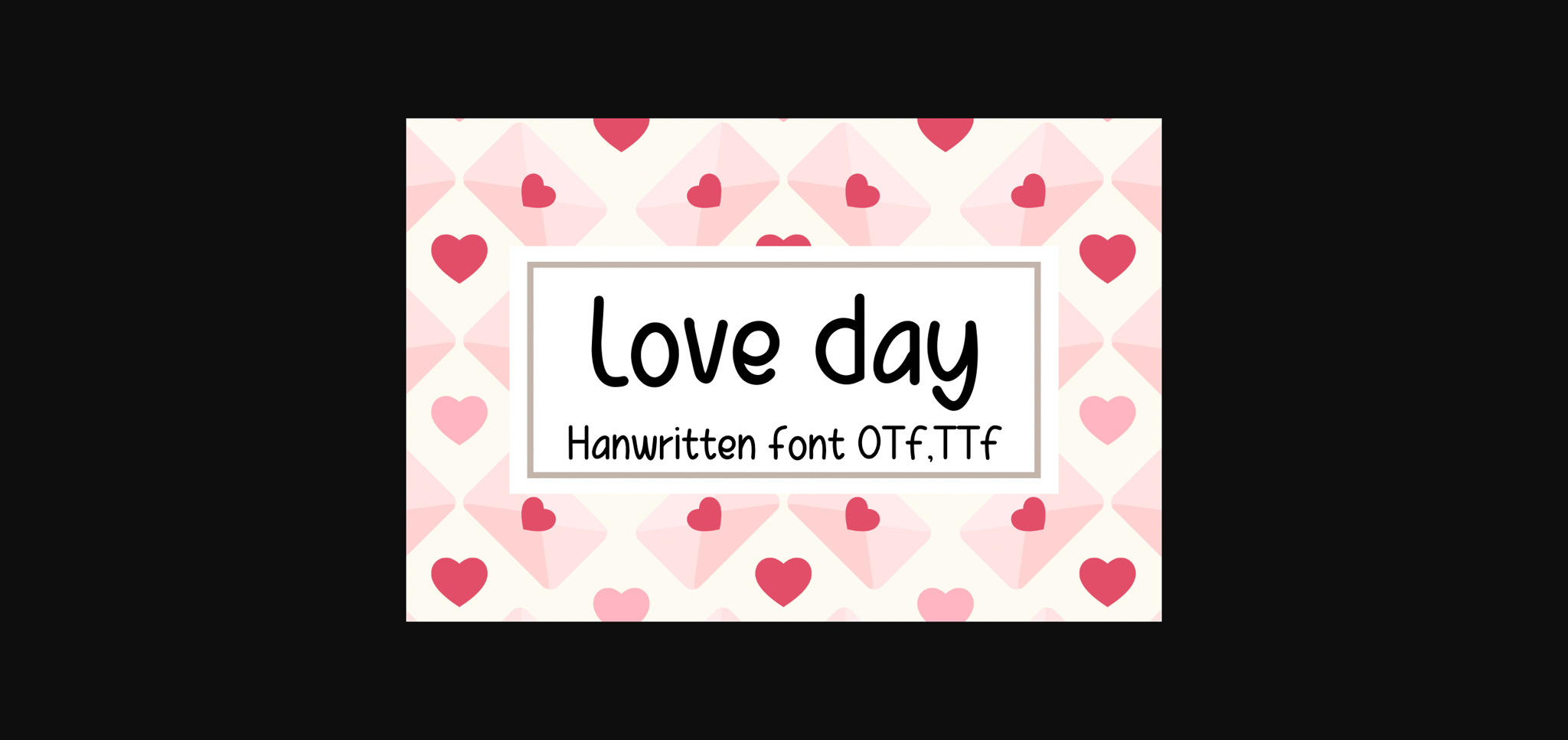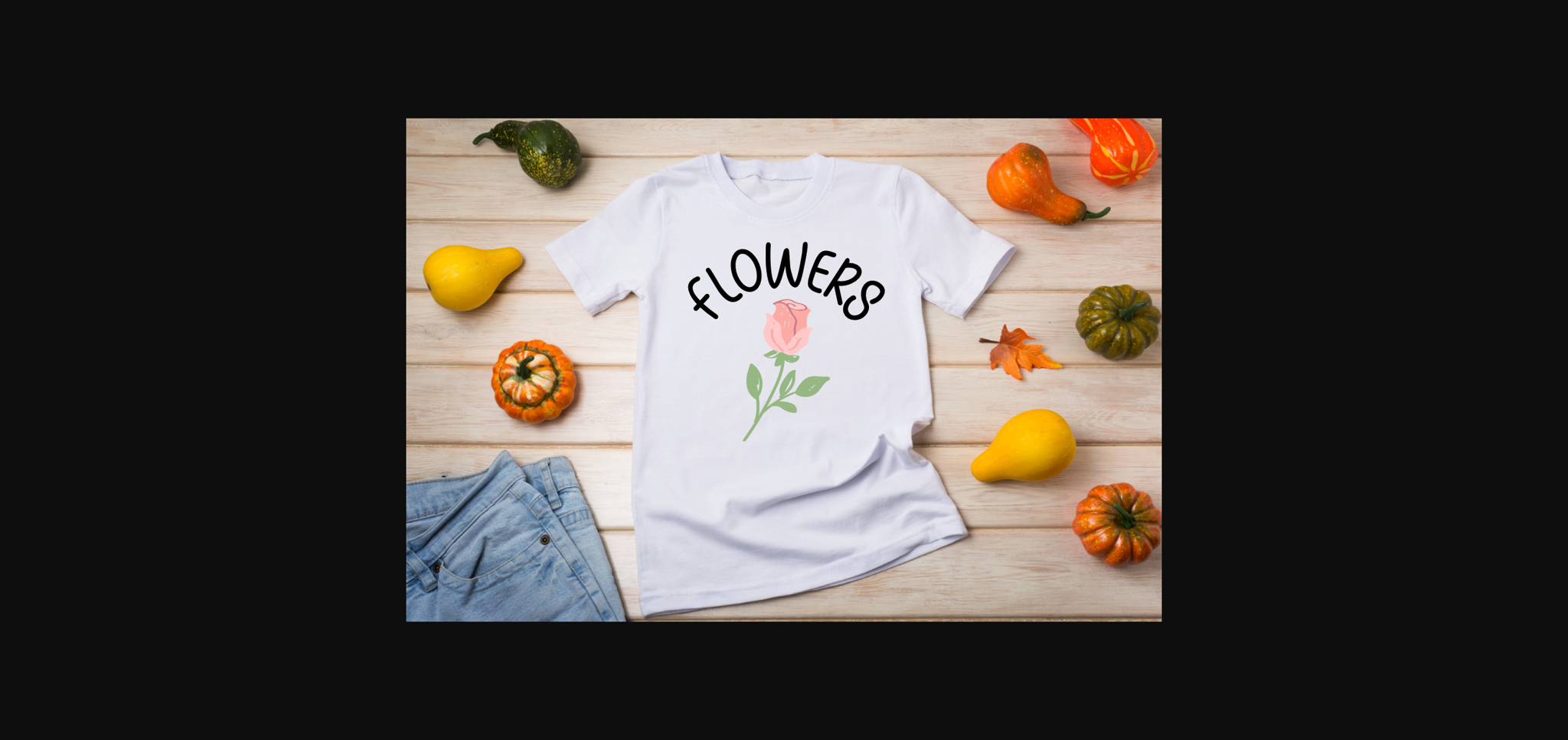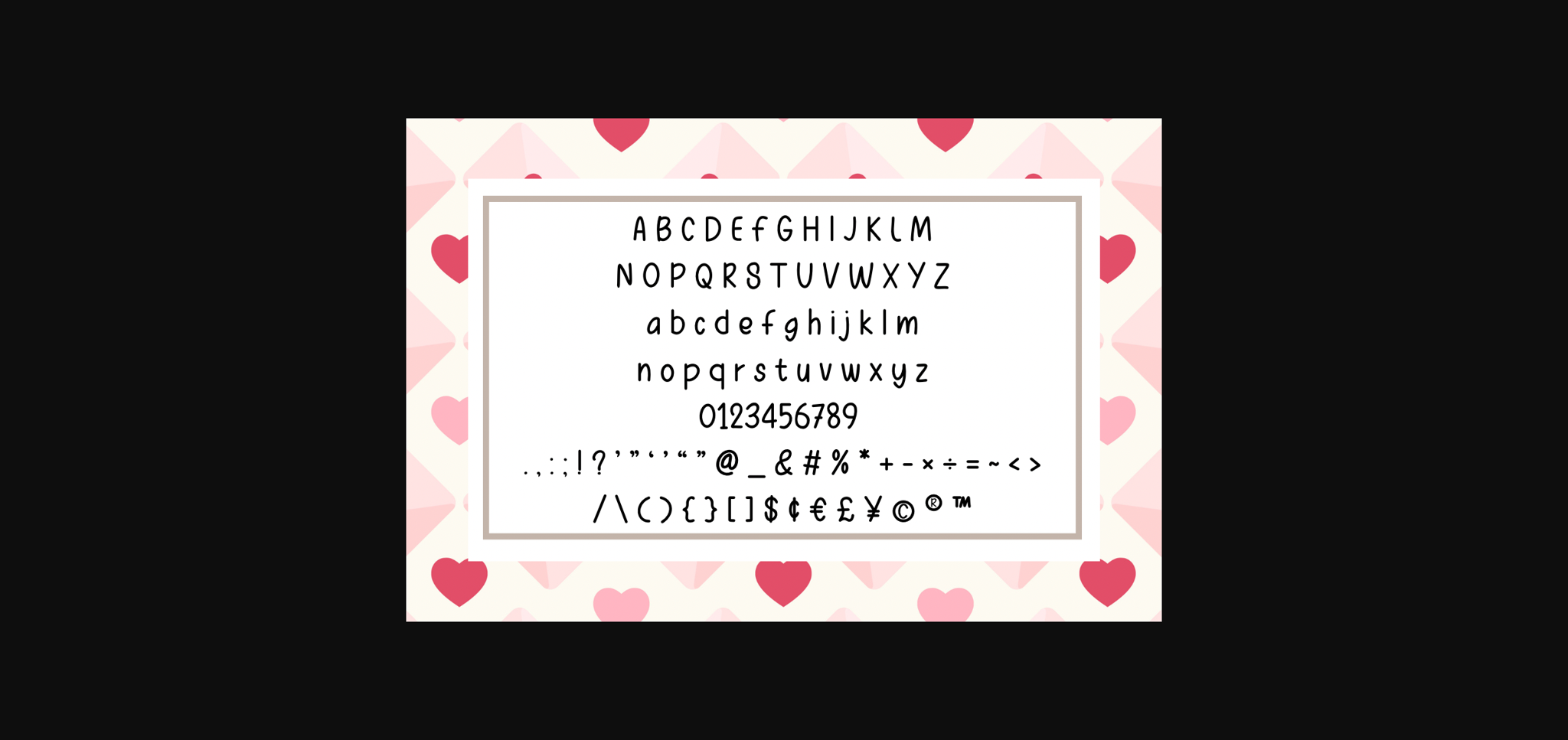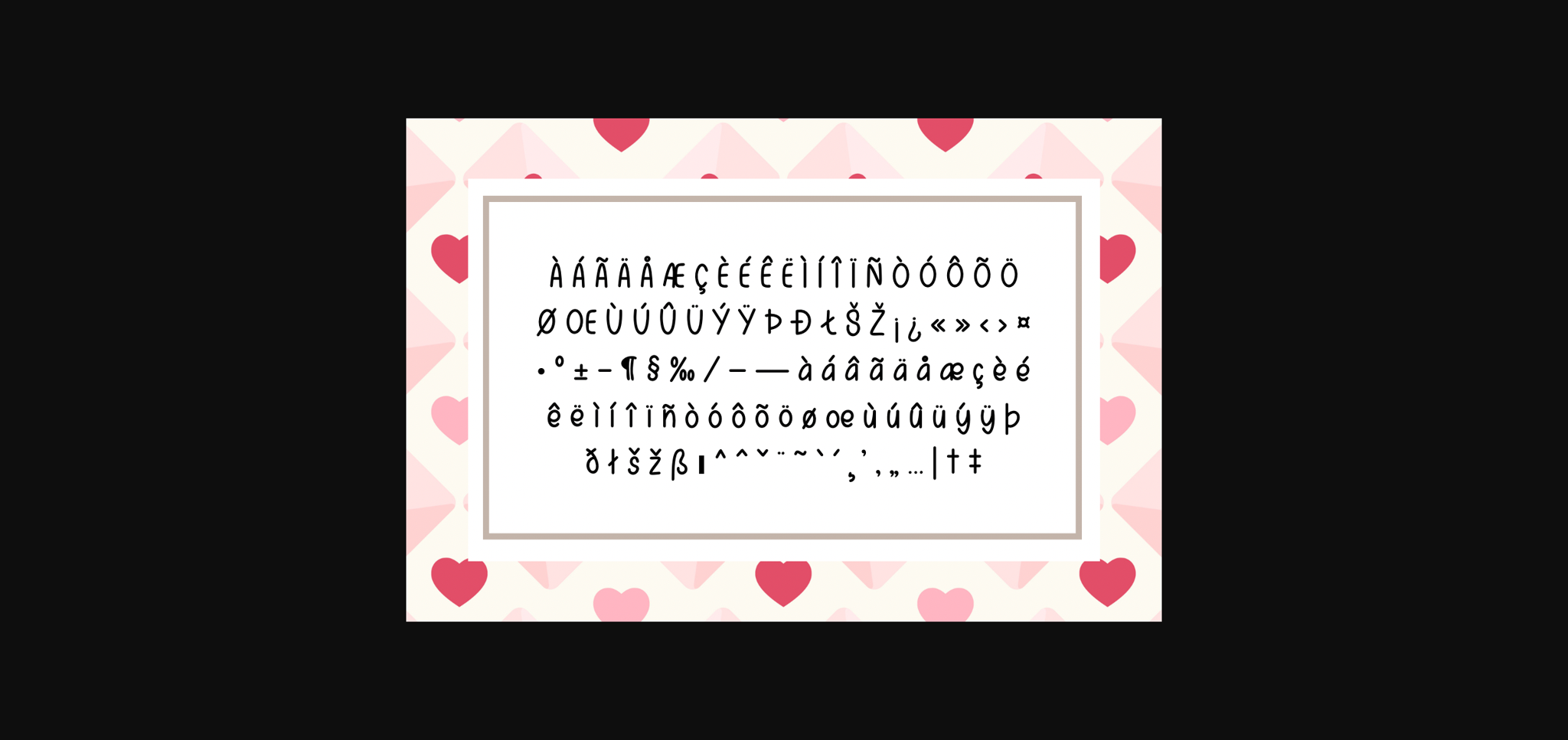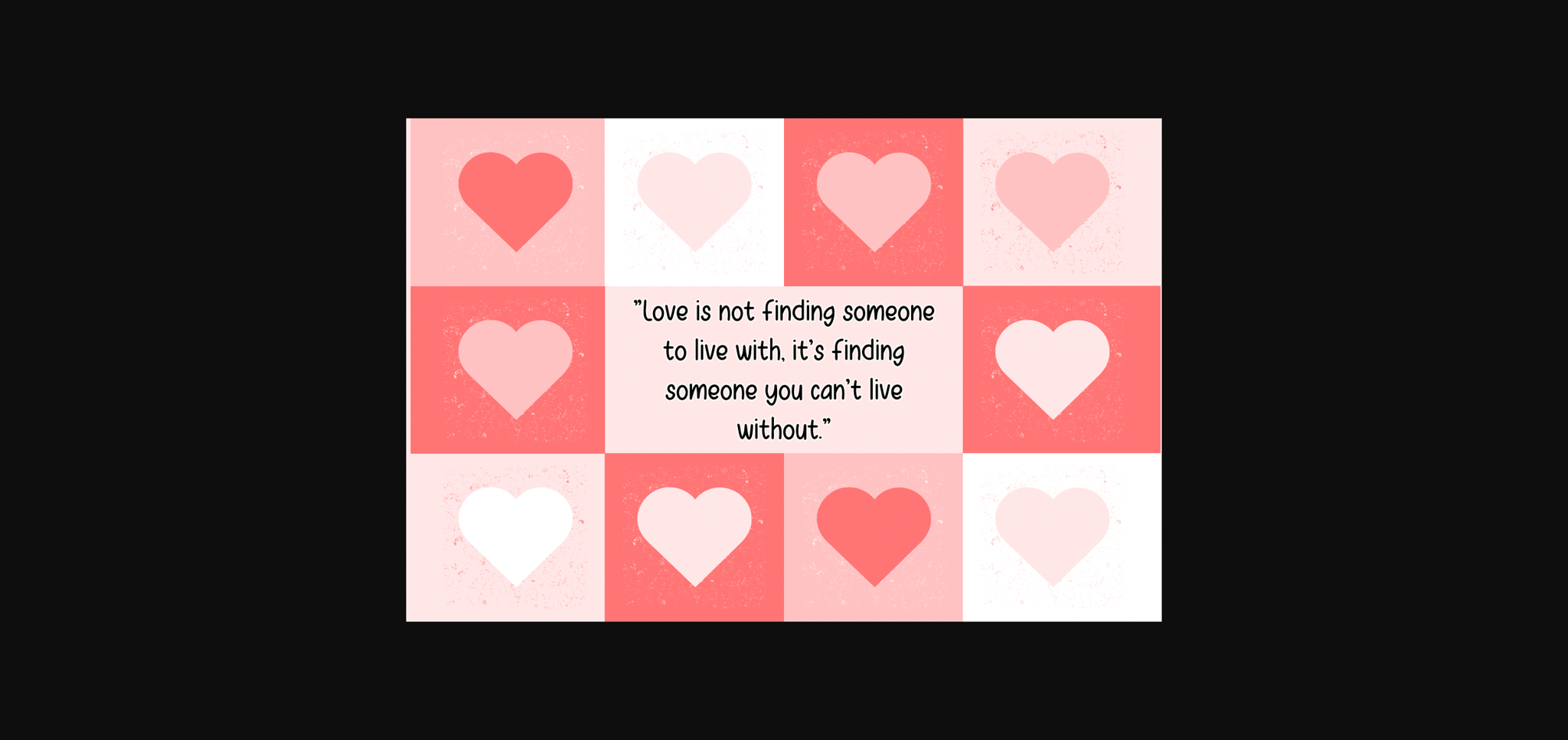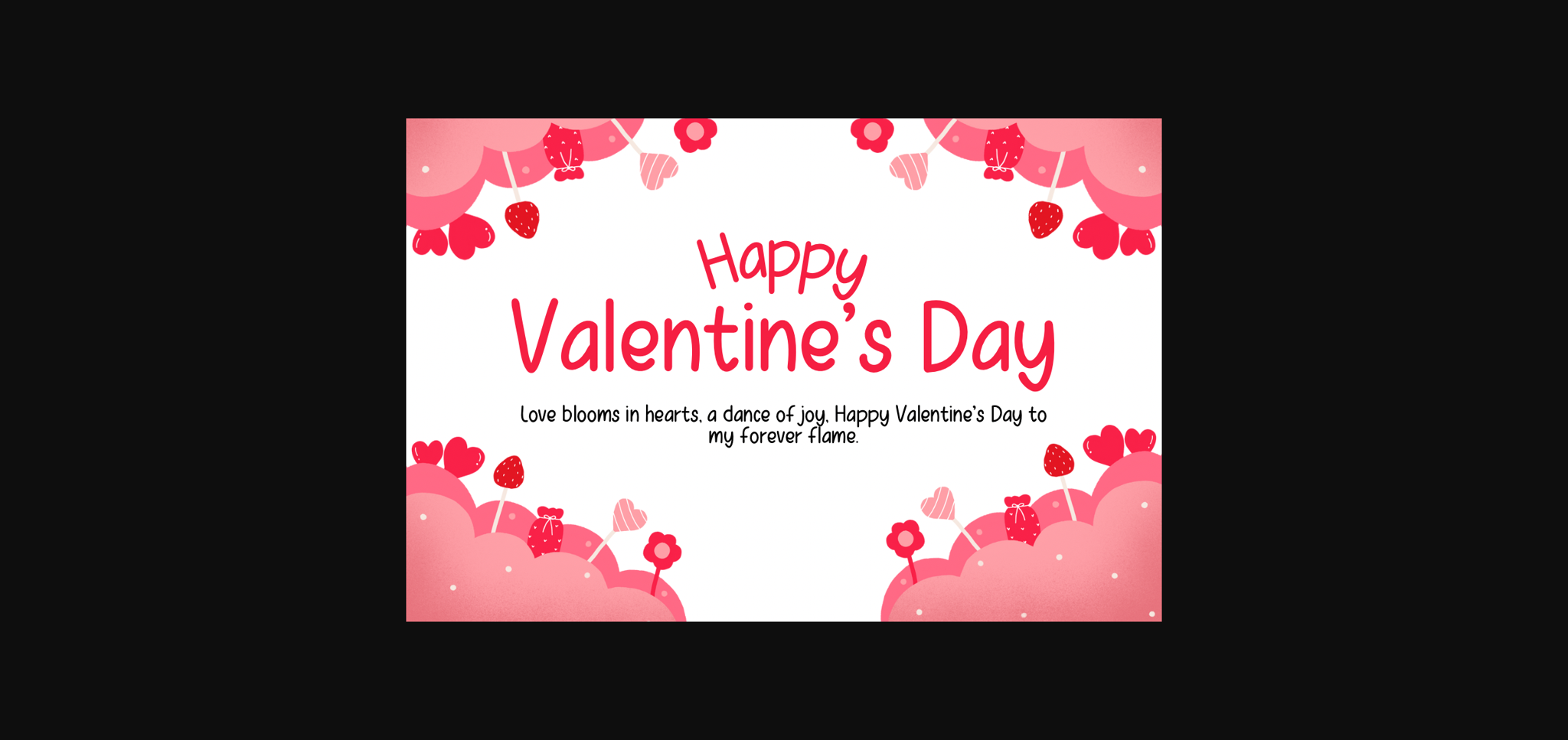
About Love Day Font
Love Day is a handwritten font. You can use it for taking notes, writing a diary or making greeting cards. However, you can still use it for other designs such as banners content mugs cards shirts stationery social media posts and more!